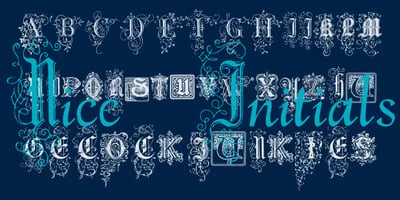
Nice Initials Font
The Nice Initials Font is perfect for monogram designs, personal branding projects, elegant wedding stationery, luxury boutique logos, custom embroidery patterns, high-end jewelry branding, exclusive membership cards, and sophisticated corporate identity systems. This refined typeface excels in applications where personalized elegance and distinctive character identification are essential, making it ideal for brands that want to create memorable first impressions through beautifully crafted initial letters and monographic sophistication.
What makes Nice Initials Font exciting is its exquisite balance between decorative beauty and functional elegance that transforms simple letters into works of art. The font's ornamental flourishes and carefully crafted details create an atmosphere of personalized luxury and sophisticated customization, making it perfect for brands that want to offer clients truly unique and memorable visual identities. Its distinctive character design ensures that every monogram feels exclusively crafted and personally meaningful.
The Nice Initials Font family typically includes ornamental capitals, decorative variations, and elegant flourishes, often featuring connecting elements and embellishment options that enhance its monographic versatility. Many versions include swash alternates, decorative borders, and specialized ornamental characters that provide designers with comprehensive tools for creating sophisticated monogram systems and personalized branding solutions with timeless appeal.
For designers working on projects that require personalized elegance and monographic sophistication, Nice Initials Font offers exceptional customization potential. Its ability to instantly communicate luxury and personal distinction makes it an invaluable choice for high-end brands, wedding professionals, and any project requiring typography that embodies the art of beautiful letter craftsmanship and exclusive personalized design excellence.